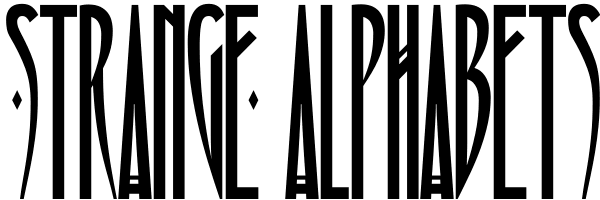
Strange Alphabets
Strange Alphabets is a narrow Arts & Crafts display font inspired by late 1800’s book covers and an early 1980’s variation of the Siouxsie & the Banshees band logo. Strange Alphabets includes copious punctuation and symbols. It’s loaded with...